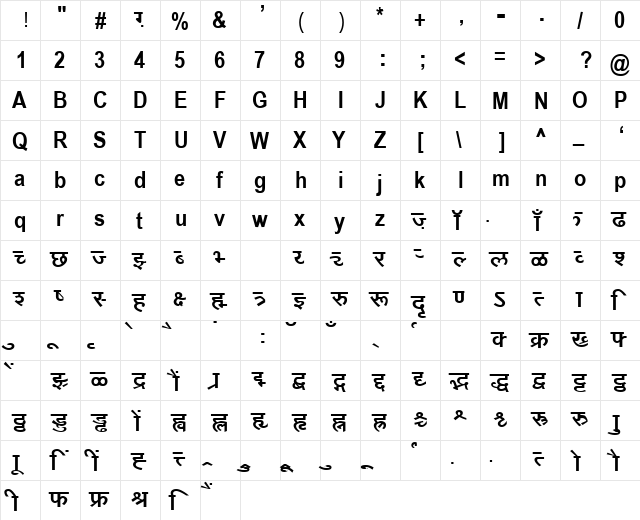
AkrutiOfficeYogini-S Bold
Design Context for AkrutiOfficeYogini-S Typeface
AkrutiOfficeYogini-S takes a measured approach to typography — its balanced proportions and neutral character make it a reliable workhorse for both digital and print work. Its bold stroke weight gives it real presence on the page.